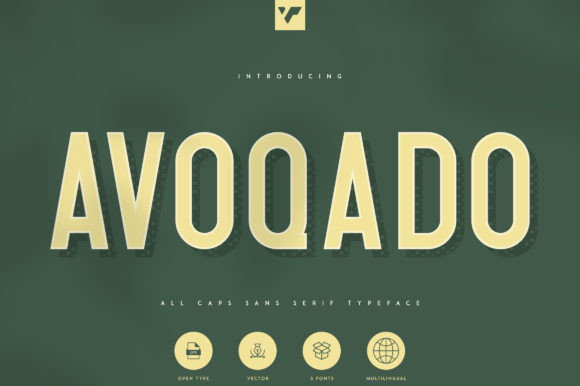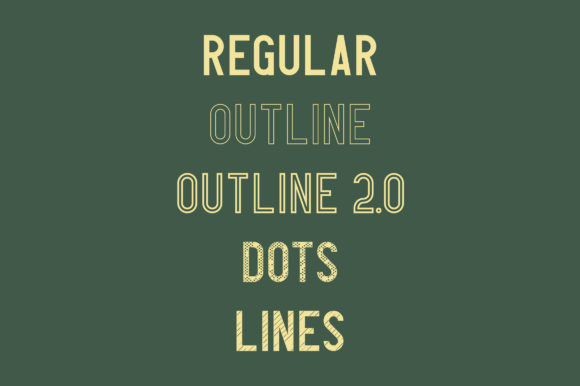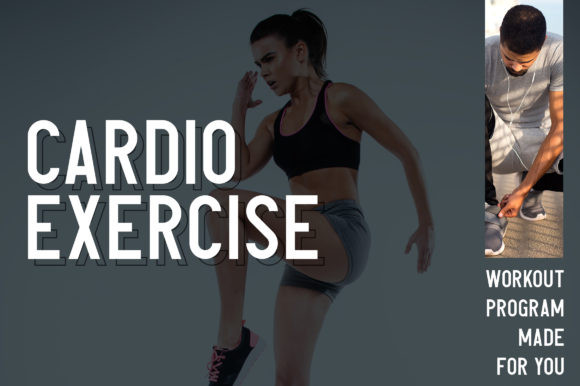
Avoqado Font
Avoqado is a casual sans serif font. Avoqado will look outstanding in any context, whether it’s being used on busy backgrounds or as a standalone headline!